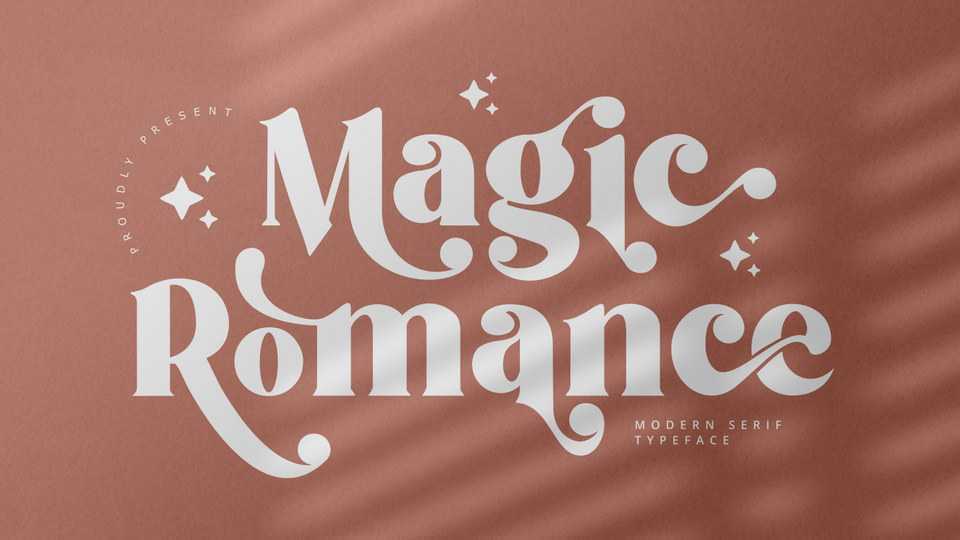
Download Magic Romance font, a retro styled, trendy and fashionable serif typeface. Use Magic Romance for your designs and explore its endless possibilities.
Designer: Zeenesia Studio